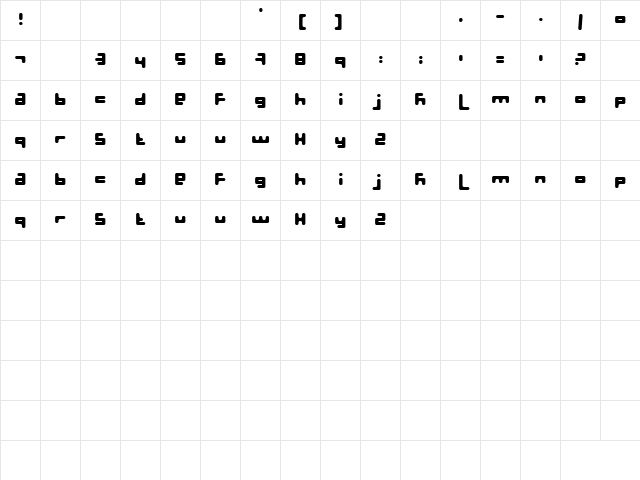
Complete Fluffster Regular glyph index. Displaying only characters natively supported by Fluffster Regular font.
Fluffster is a composed and adaptable typeface that performs quietly and consistently across a wide range of design contexts.